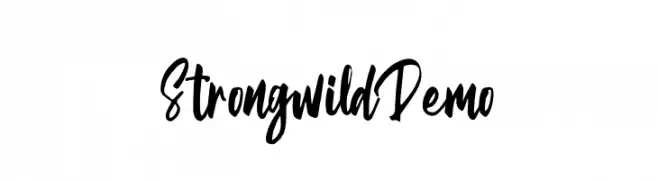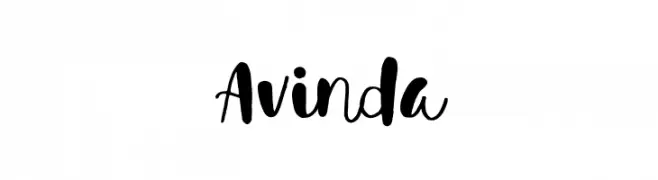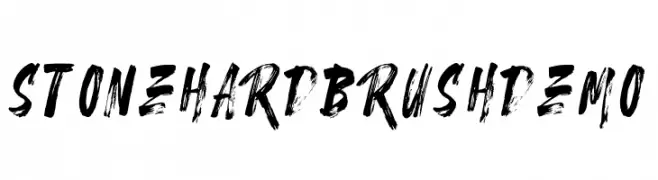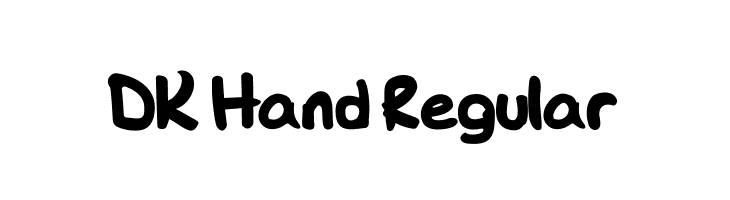
A playful, casual handwritten font with fluid, organic letterforms.
A bold, dynamic script font with elegant curves and a modern classic style.
A bold, hand-drawn font with a playful and expressive style.
A bold, brush-style script font with dynamic and artistic strokes.
A bold, playful script font with flowing strokes and rounded edges.
A bold, expressive handwritten font with fluid strokes.
A bold, energetic script font with a hand-drawn, dynamic style.
A bold, expressive brush font with dynamic, hand-painted strokes.
A bold, flowing script font with a modern, handwritten style.
A lively, flowing script font with elegant curves and a handwritten style.